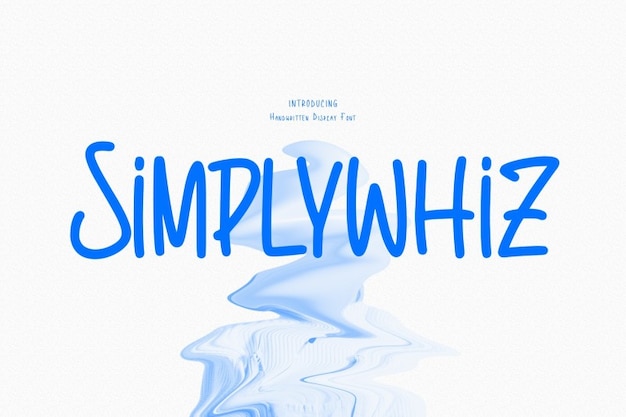
Simplywhiz Font
Simplywhiz is a charming font that embodies the essence of casual handwriting with its simple, straightforward design. Its clean and basic strokes ensure excellent legibility, making it perfect for a variety of projects, from personal notes to branding. With its approachable style, Simplywhiz adds a touch of warmth and familiarity to any design, making your text feel friendly and inviting.